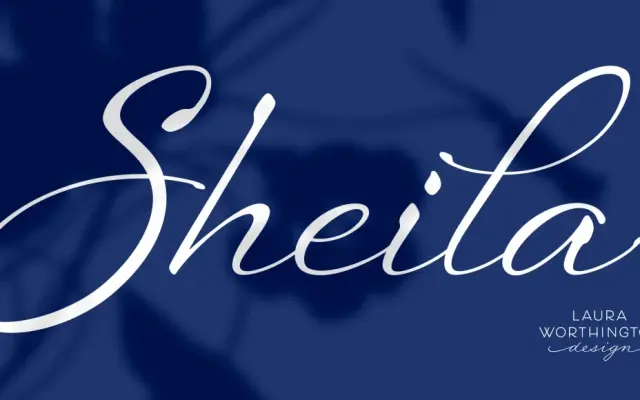
Sheila
A two-weight script balancing casual handwriting with calligraphic structure, featuring 35 swash forms and contextual alternates for natural-looking connections.
Designed for friendly or feminine applications such as inspirational quotes and fashion layouts, it combines airy letterforms with careful calligraphic construction. Contextual alternates and ligatures create natural word flow, while 35 swash forms provide decorative variety. The family includes special coding to make swashes, alternates and ornaments accessible without professional design software.
A script that blends casual handwriting with calligraphic forms, featuring contextual alternates, ligatures and swash letters typical of the brush-influenced script category.